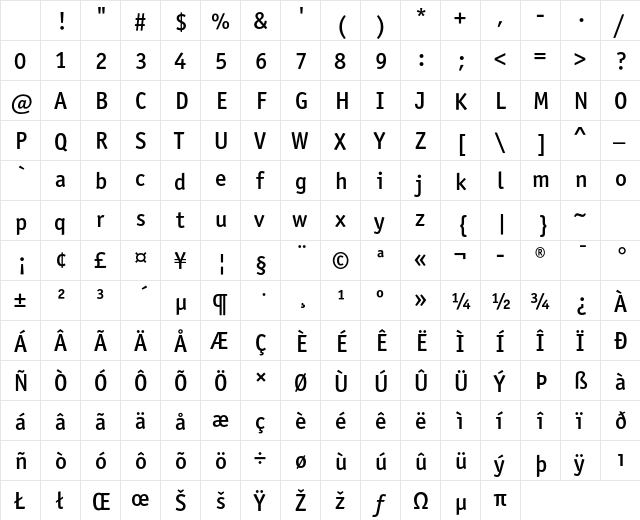
OfficinaSansITCStd Medium
Designer: Erik Spiekermann and Ole Schaefer
Complete OfficinaSansITCStd Medium glyph index. Displaying only characters natively supported by OfficinaSansITCStd Medium font.
Design Context for OfficinaSansITCStd
OfficinaSansITCStd is a composed and adaptable typeface that performs quietly and consistently across a wide range of design contexts.
Pro Tip: Use OfficinaSansITCStd in both headline and body roles to test its range before committing to a single application.